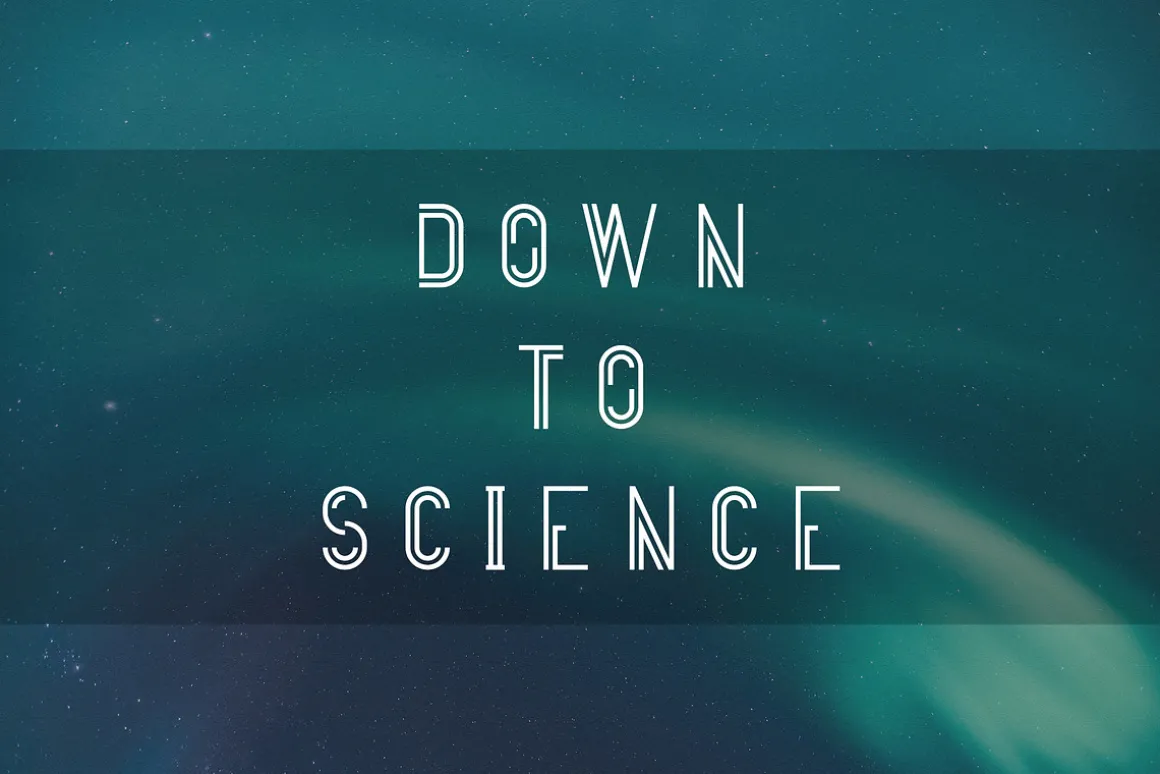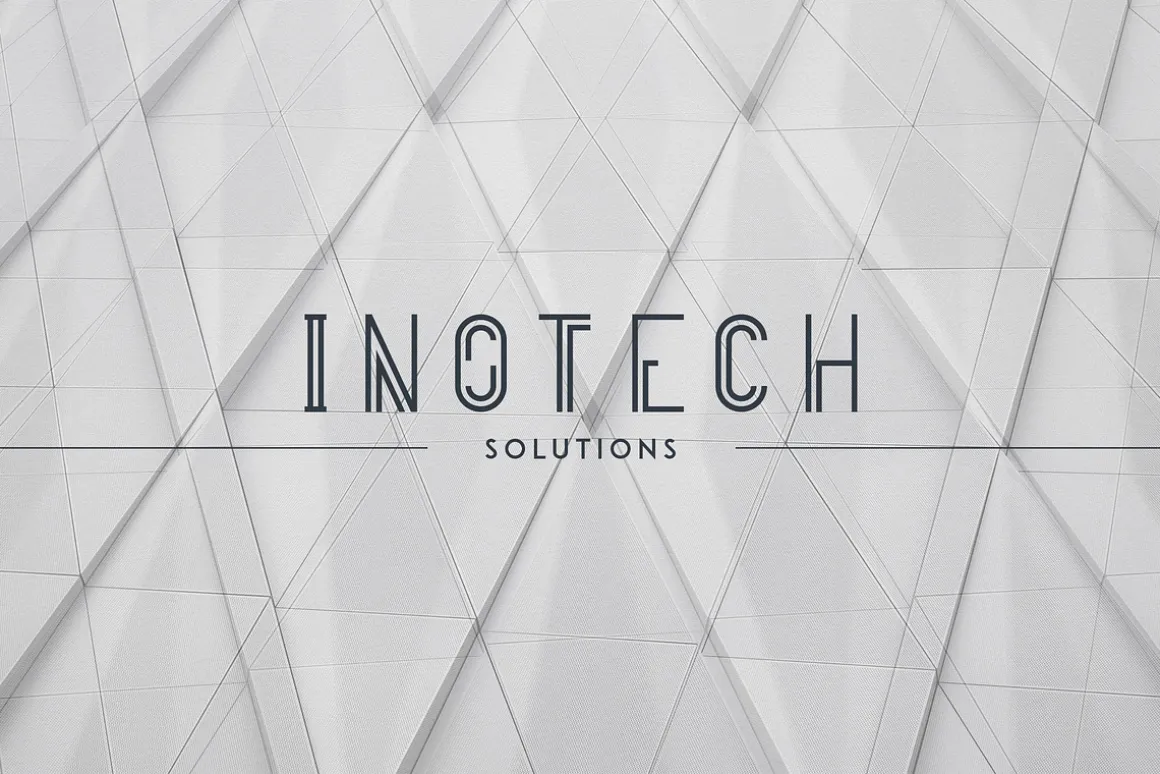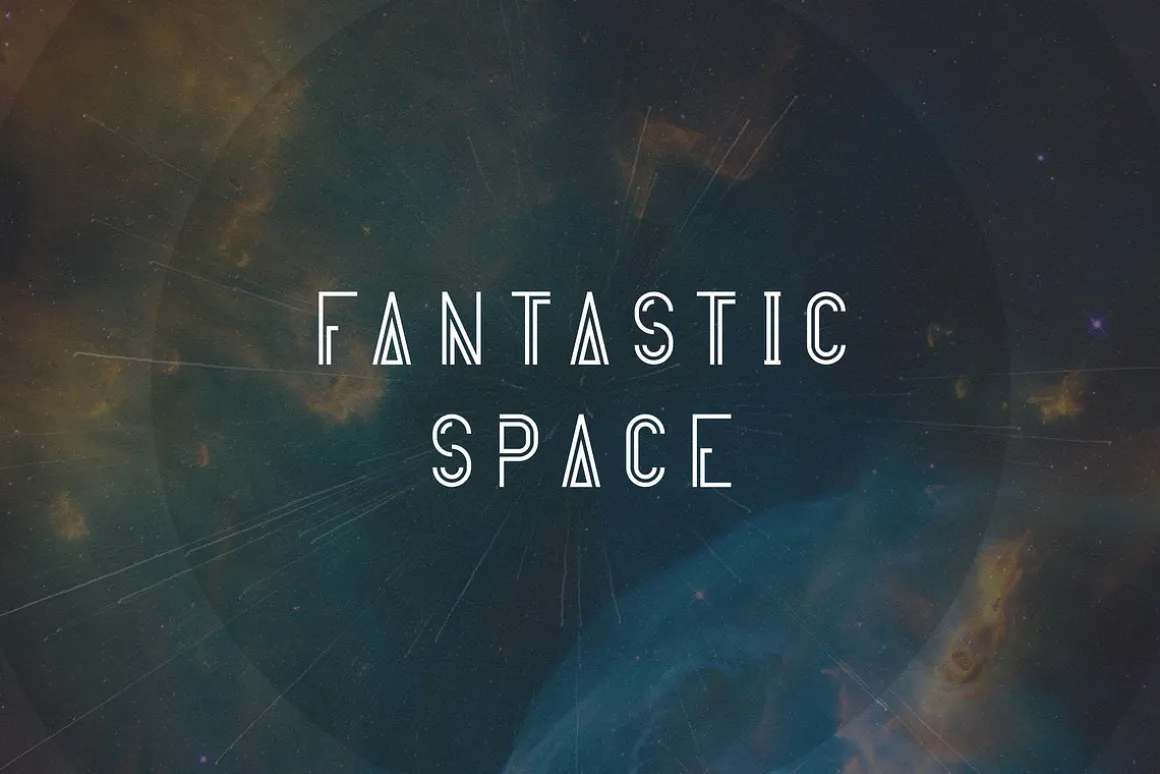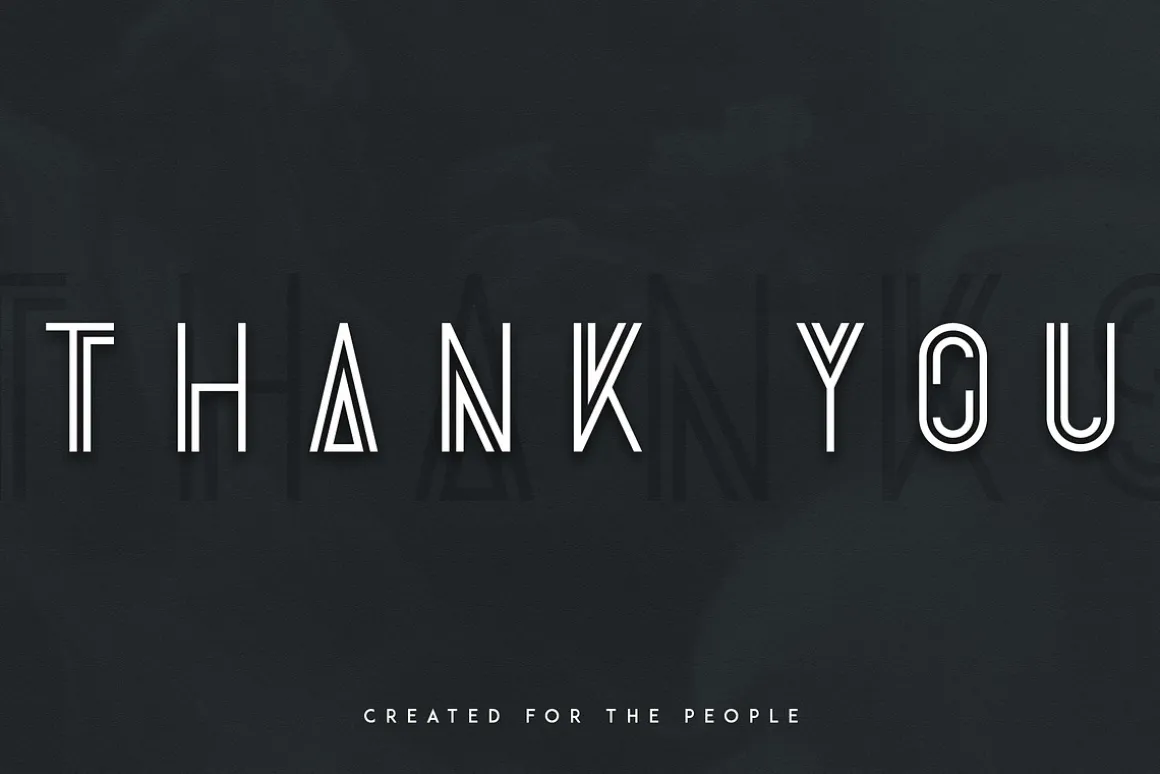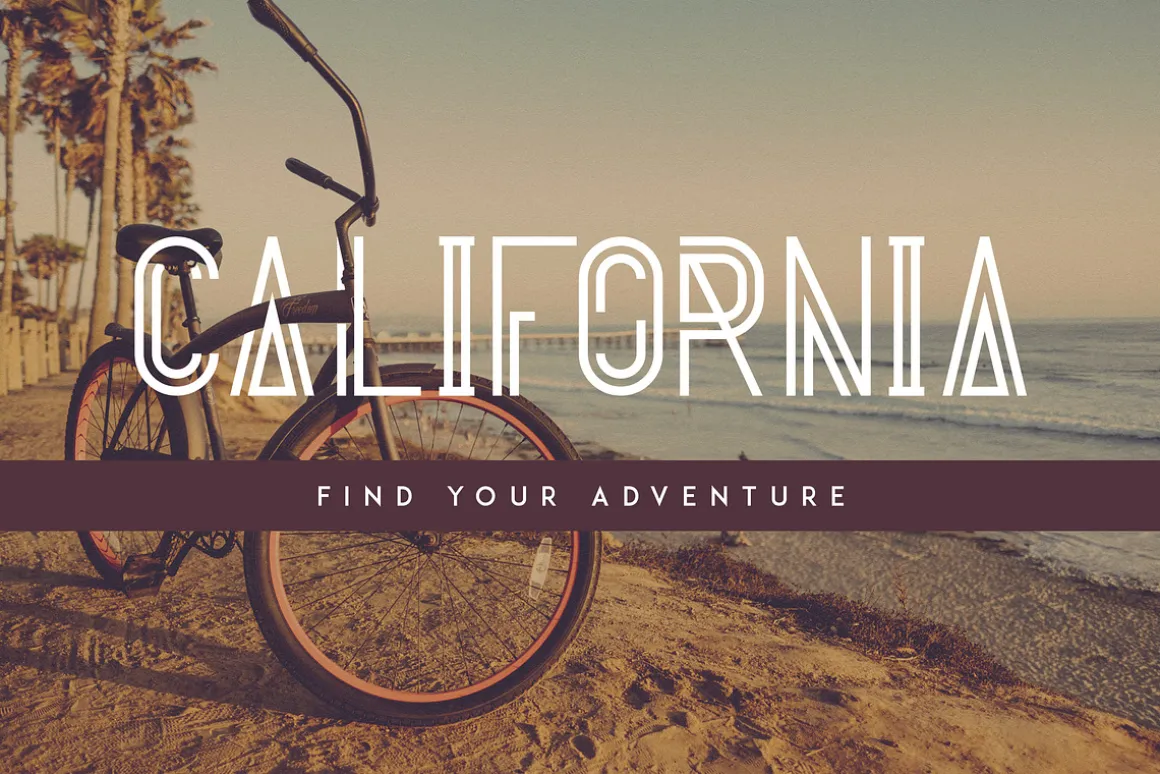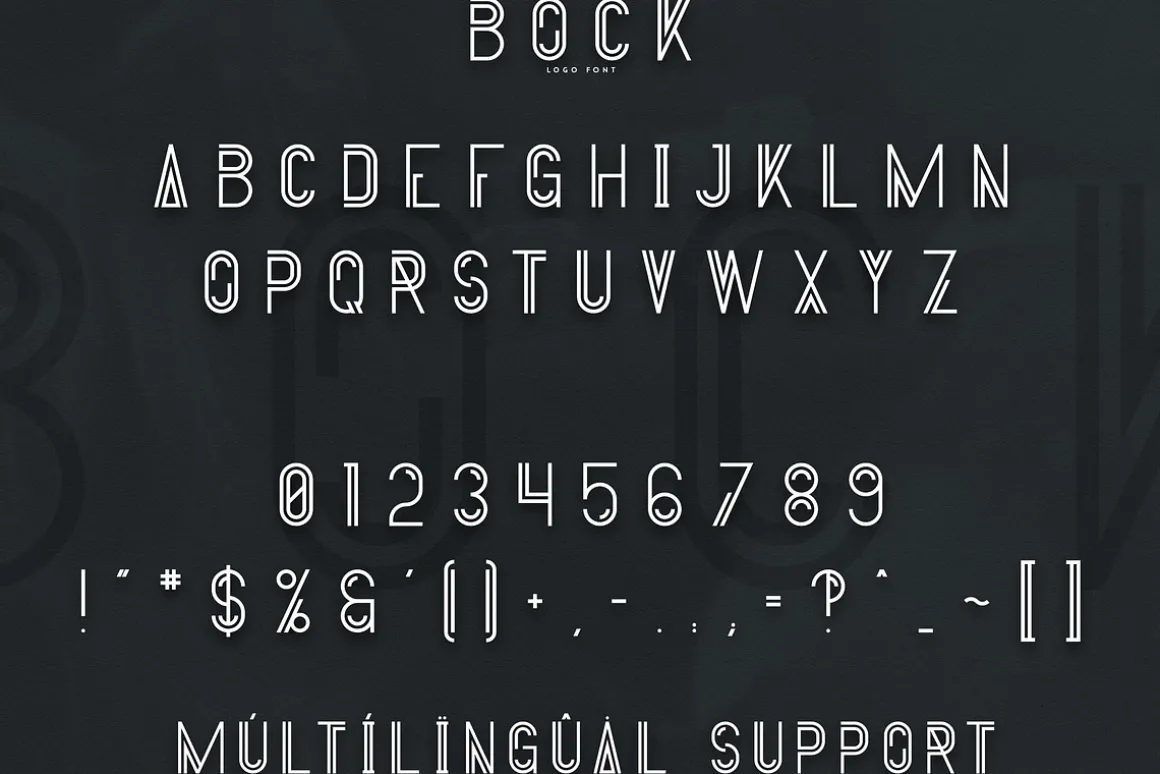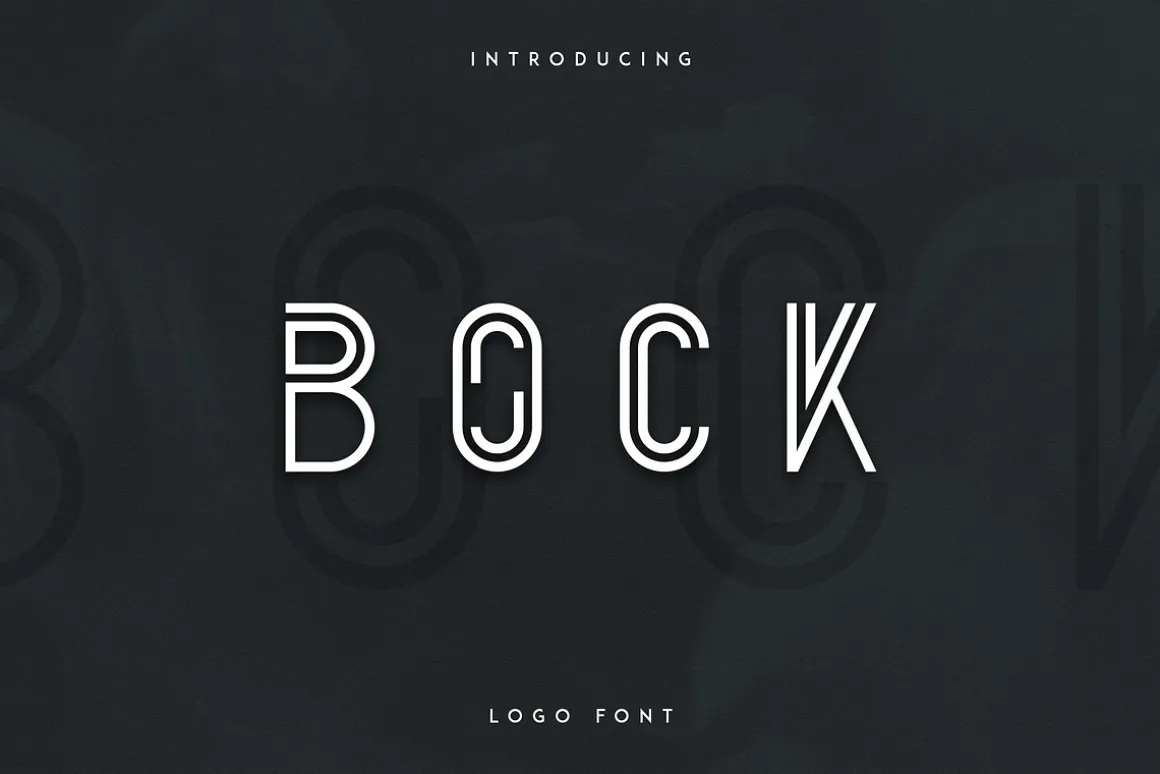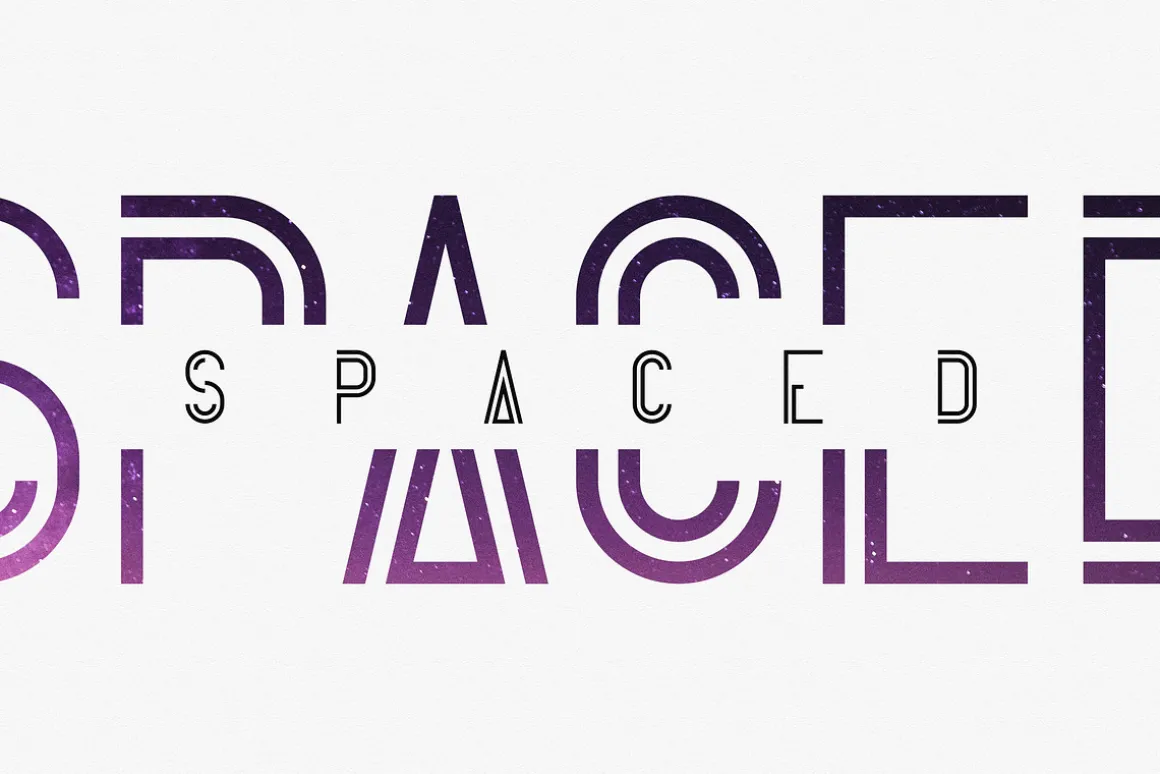
Bock is futuristic, clean font with multilingual support. It’s a very versatile font that works great in large and small sizes.
Bock is perfect for branding projects, home-ware designs, product packaging, magazine headers – or simply as a stylish text overlay to any background image.
- Uppercase,lowercase, numeral,punctuation & Symbol
- Regular
- Clean
- Perfect for headlines and logos
- Multilingual support